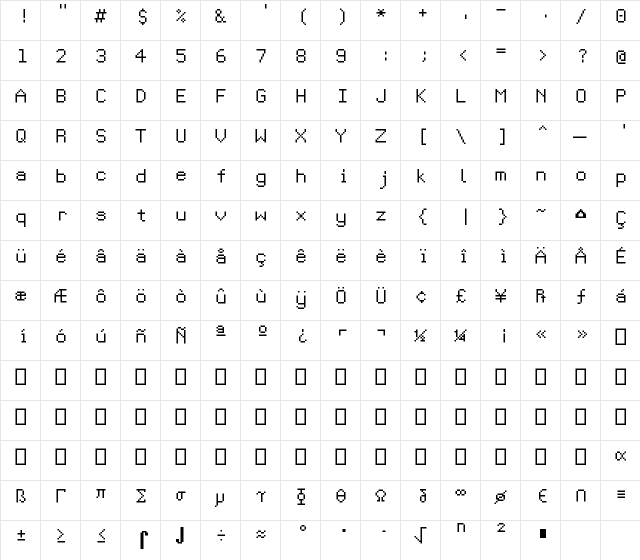
PixelCarnageMonoTT Regular
Design Context for PixelCarnageMonoTT Typeface
PixelCarnageMonoTT celebrates the constraints of early digital type, turning pixel geometry into a distinctive and immediately recognisable style.
A natural choice for retro game titles, chiptune music branding, 8-bit UI, and digital nostalgia projects.
Pro Tip: Pair PixelCarnageMonoTT with flat colour palettes and simple geometric UI elements to reinforce its digital aesthetic.